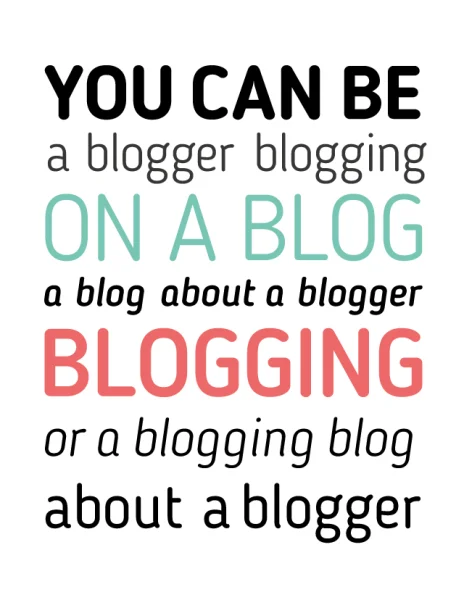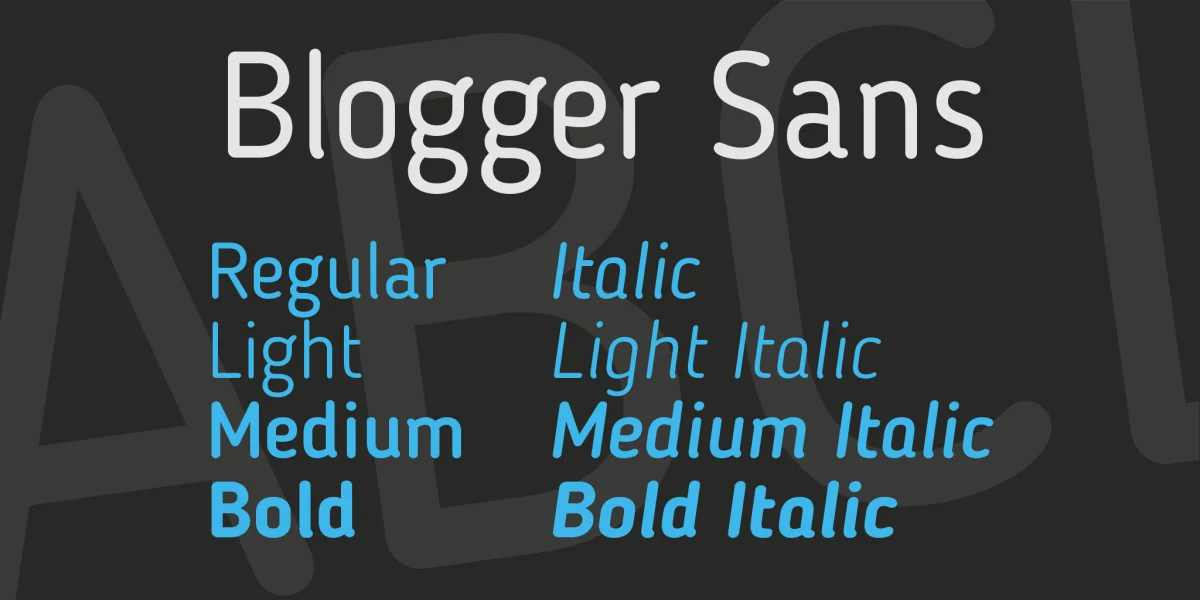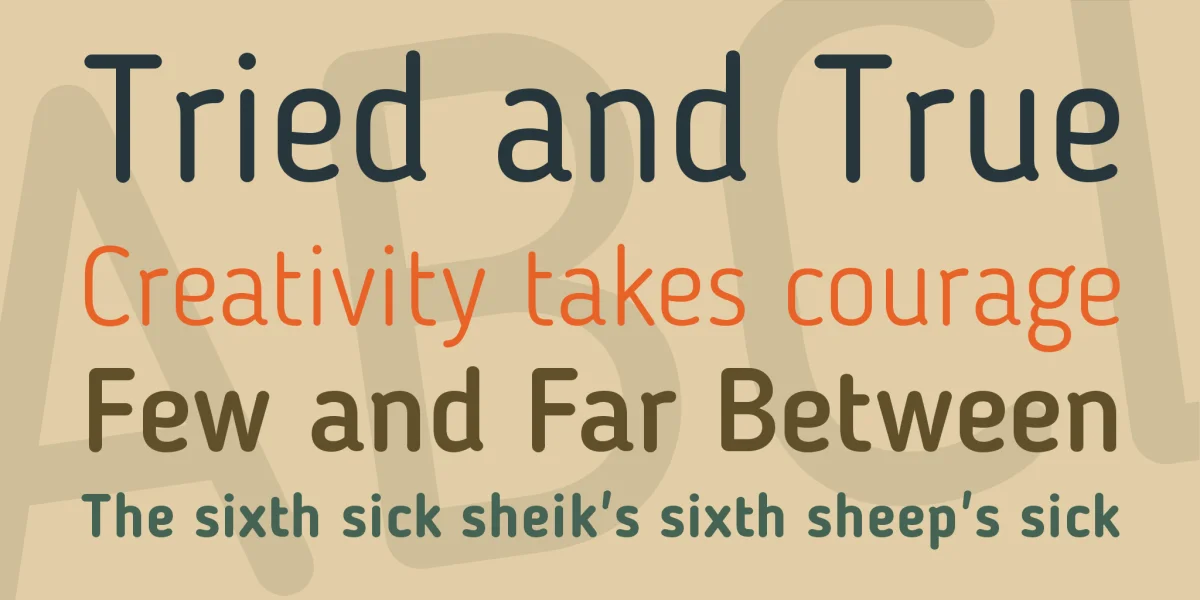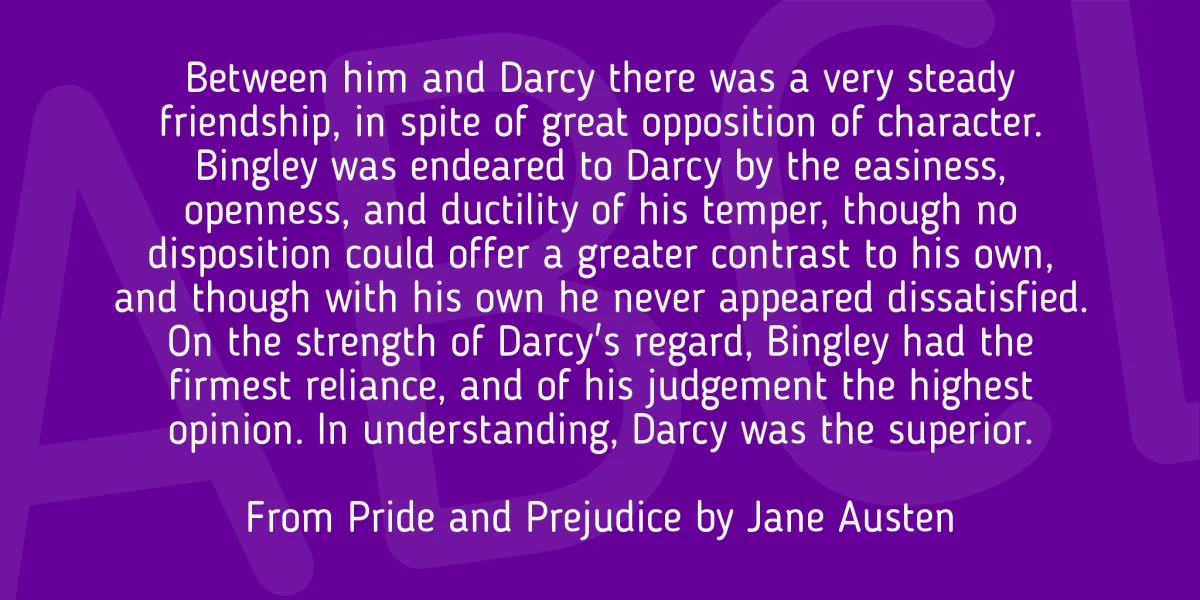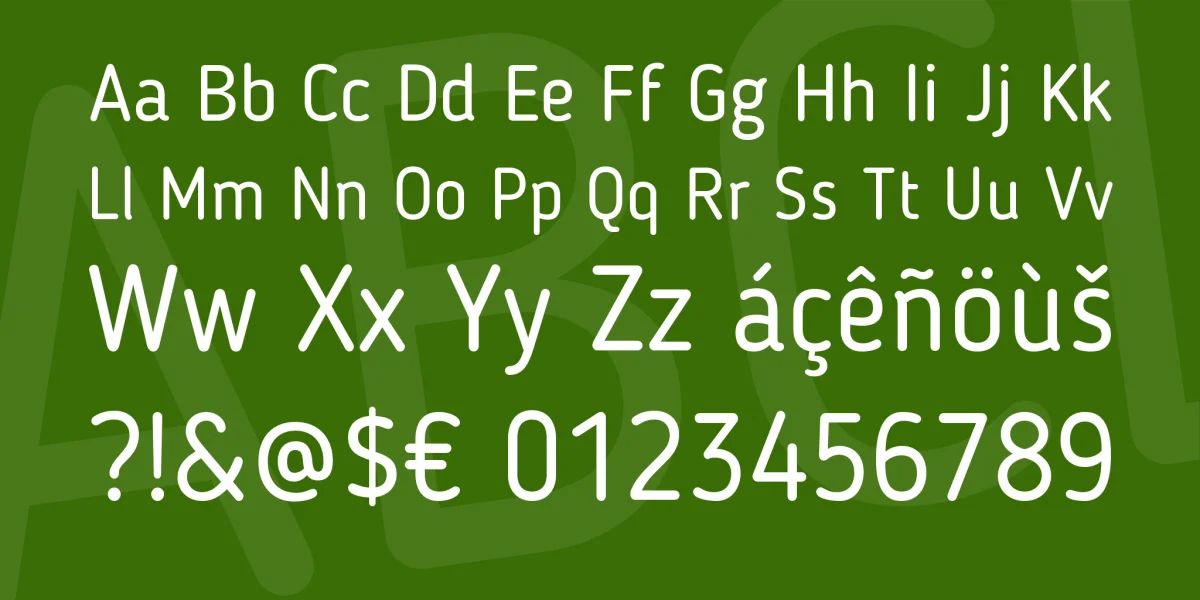
Blogger Sans was designed by Sergiy Tkachenko as the FirstSiteGuide's custom typeface, created primarily for the use in headlines of the website. Blogger Sans draws inspiration from the clarity and legibility of the popular font Dosis with the additional support of the lost Cyrillic languages. The bolder weights are lighter and softer. The following elements (-b-d-h-k-p-q-y-) are shorter, thus the headlines and subheads could be put in the dense line spacing. In addition the outline of the Blogger Sans is more smooth with better eligibility.
Number of glyphs 547 and kerning pairs 2496 to expanded the number of supporting languages.
Supporting languages: Albanian, Basque, Belarusian, Bosnian, Breton, Bulgarian, Catalan, Croatian, Cyrillic, Czech, Danish, Dutch, Esperanto, Estonian, Faroese, Finnish, French, Frisian, Galician, German, Hungarian, Icelandic, Italian, Lithuanian, Malagasy, Maltese, Norwegian, Polish, Portuguese, Romanian, Russian, Serbian, Slovak, Slovenian, Spanish, Swedish, Turkish, Ukrainian, Welsh (and more).
Blogger Sans comes in 4 incremental weights with total of 8 different outlines.
Since Blogger Sans supports Cyrillic, it supports regional features for Bulgarian and Serbian (partially) languages.
It also contains extra currency symbols, error signs, and dingbats.